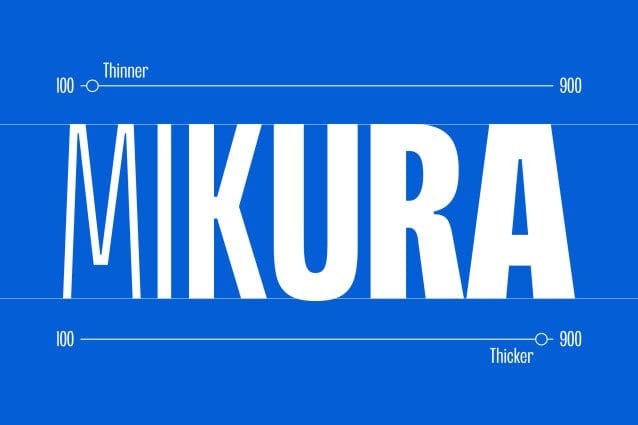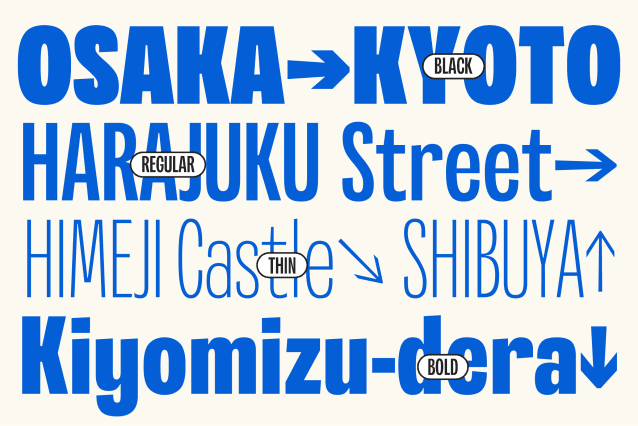
SG Mikura Sans Font
SG Mikura Sans Font: Redefine Possibilities with Typography. Elevate your designs with the perfect blend of variability and versatility offered by our brand new font. With 9 meticulously crafted weights and over 600 meticulously designed glyphs, your creativity knows no bounds. From elegant finesse to bold statements, let SG Mikura be the cornerstone of your visual masterpiece. Discover the art of expression through typography today.
Designer Name: Studio Gulden